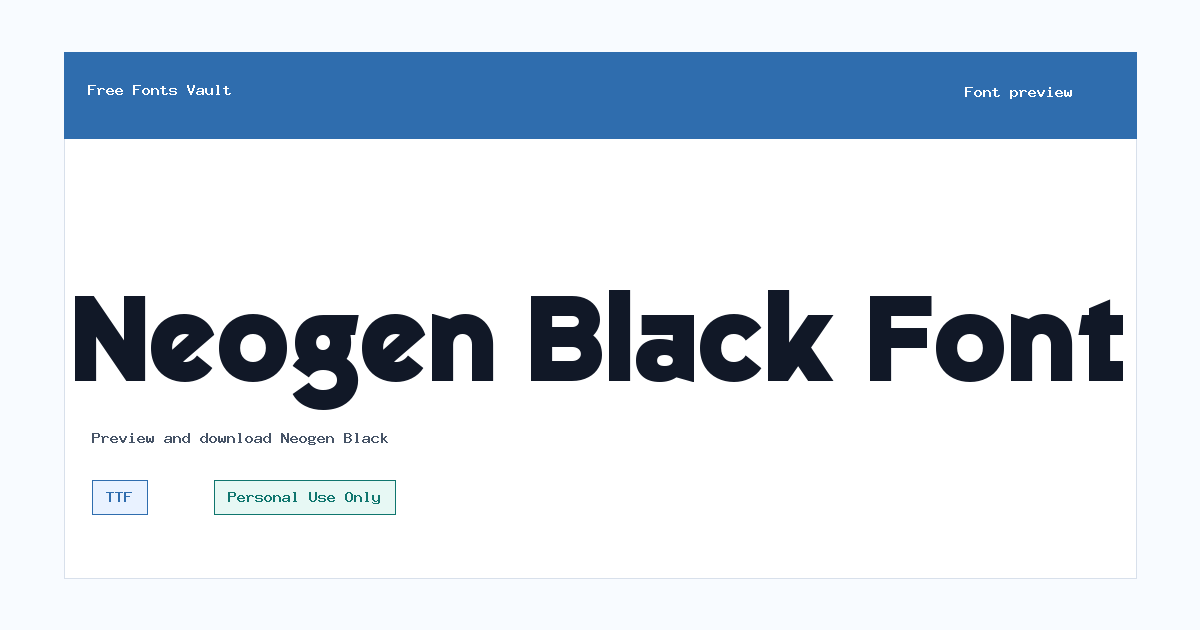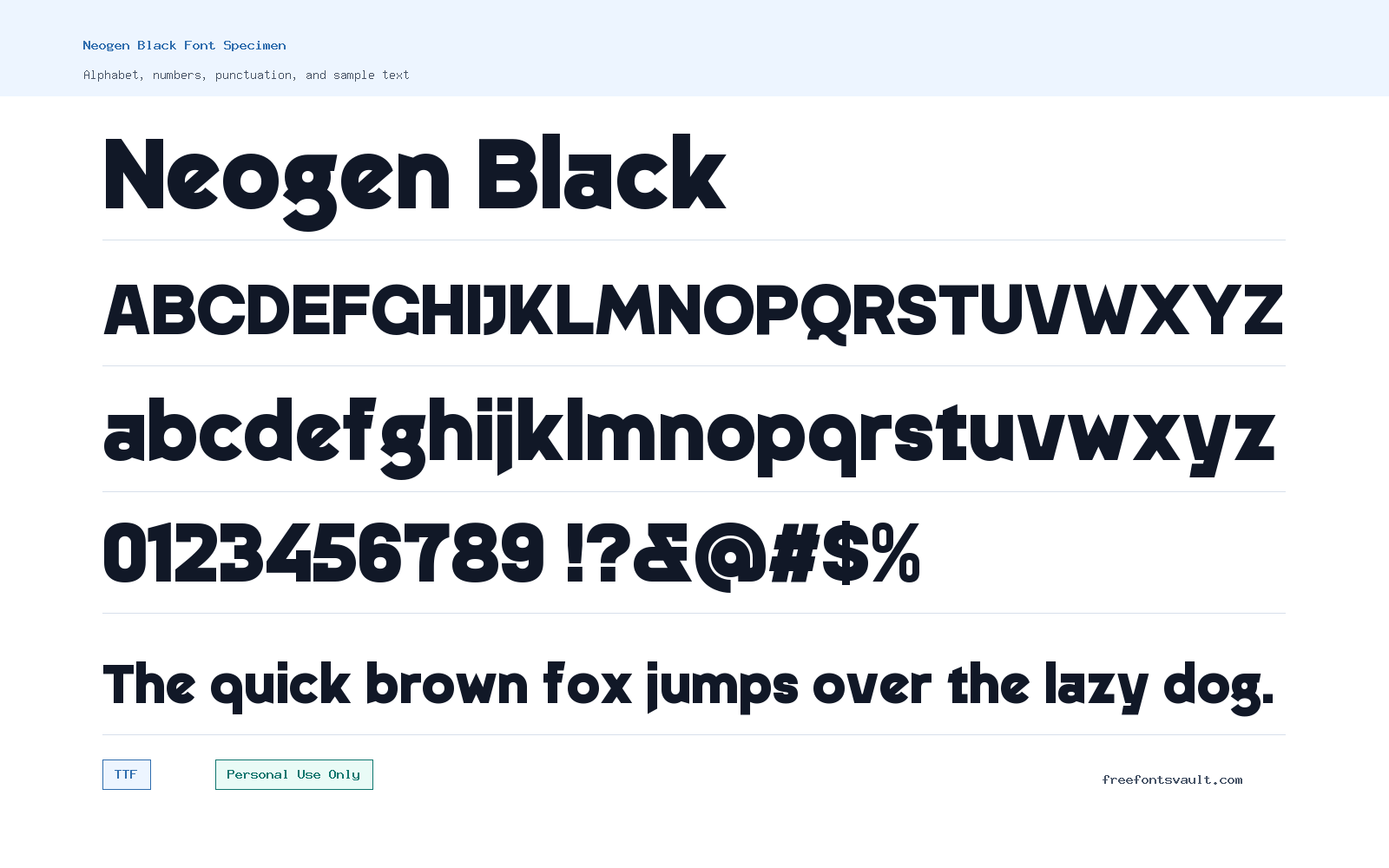
Neogen Black
Neogen Black font.
Neogen Black is a heavy sans serif font with a strong, compact look that suits short display text, bold headings, poster titles, and logo-style experiments.
About Neogen Black
Neogen Black is built for impact. The single available style is a Black weight, marked as 900, so it is better suited to big words than long paragraphs. Use it when you want a title, name, badge, label, or short phrase to feel solid and direct. Its sans serif structure keeps the design clean, while the heavy weight gives it enough presence for display work.
This font is most useful in places where the text has room to breathe. Try it in the preview with brand names, product labels, YouTube thumbnail words, event poster titles, apparel graphics, social media headers, and web hero mockups. Because the weight is very bold, spacing matters. Increase letter spacing slightly for all-caps text, avoid very long lines, and test the font on both light and dark backgrounds before using it in a final design.
- Heavy Black weight with a font-weight value of 900
- Sans serif style for clean, bold display typography
- Normal style with one regular variant
- Strong visual presence for short text, titles, and mockups
- Best used at medium to large sizes where the heavy shapes stay clear
- Logo concepts and brand name mockups
- Poster headlines and event titles
- Website hero headings and landing page mockups
- Social media graphics and thumbnail text
- Packaging labels, badges, and apparel text
- Bold quote graphics or short promotional phrases
For the best result, use Neogen Black as a display face rather than a body text font. Pair it with a lighter neutral sans serif for paragraphs, menus, captions, and supporting copy. If you use it in logo work or branding concepts, treat the design as a mockup until the commercial-use rights are confirmed. In layouts, keep supporting fonts simple so the heavy title style does not compete with other bold elements.
What kind of font is Neogen Black?
Neogen Black is a heavy sans serif display font. It works best for short, bold text such as titles, logo mockups, posters, and web headings.
Is Neogen Black good for body text?
It is not the best choice for long reading. The Black weight is better for display use, so pair it with a lighter, simpler font for paragraphs.
What should I pair with Neogen Black?
Pair it with a clean regular-weight sans serif for body copy or a simple humanist sans for a softer contrast. Avoid pairing it with another very heavy display font in the same layout.